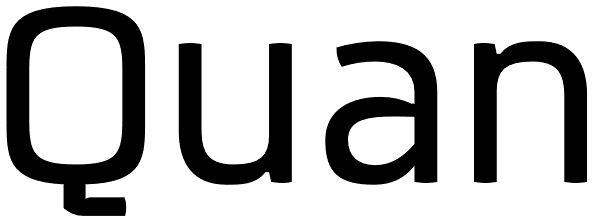
Quan
The complete Quan font family designed by Chatnarong Jingsuphatada of Bangkok-based Typesketchbook consists of a very usable, clean and modern sans typeface and a rounded sub-family. The font looks clean and geometric but it’s designed with unusual...